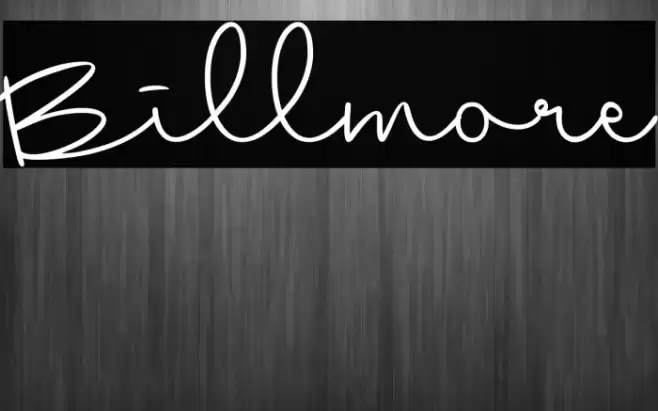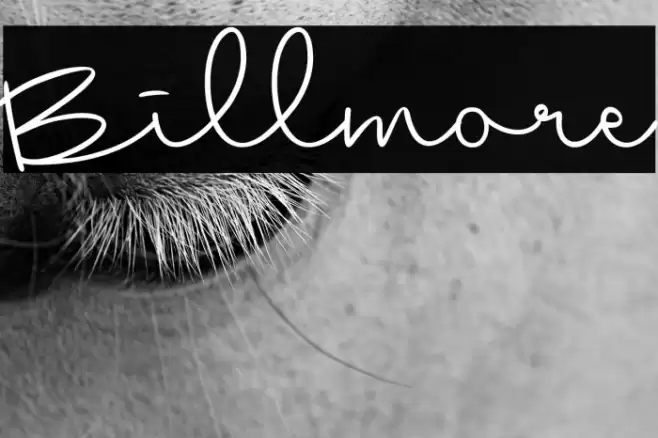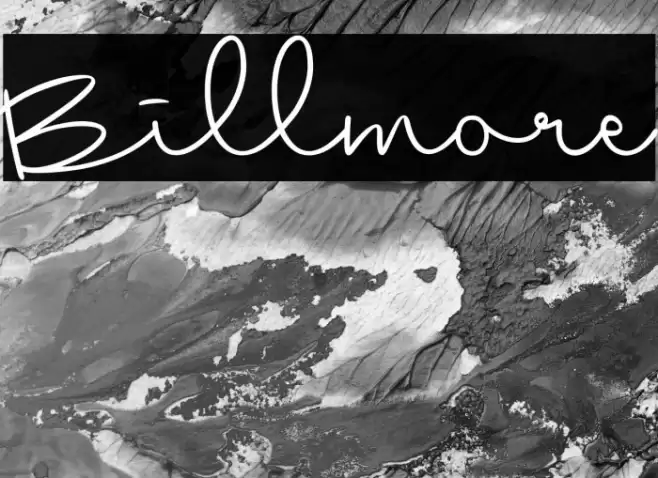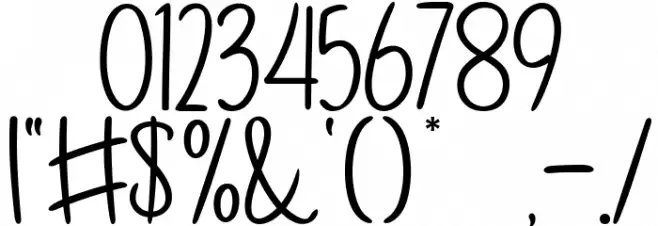
Billmore Font
Billmore Description
This font features a flowing, cursive style with a handwritten appearance. The uppercase letters are elegantly connected, while the lowercase letters maintain a consistent, smooth flow. The numerals are clear and legible, with a slight slant that complements the overall script style. Special characters are integrated seamlessly, maintaining the font's cohesive look. The design is modern yet retains a classic charm, making it versatile for various applications.
A modern cursive font with a smooth, handwritten style from Regular fonts.
- Proposed Projects: Ideal for wedding invitations, greeting cards, personal branding, and elegant logo designs.
- Use Case: Logos, Invitations, Greeting Cards